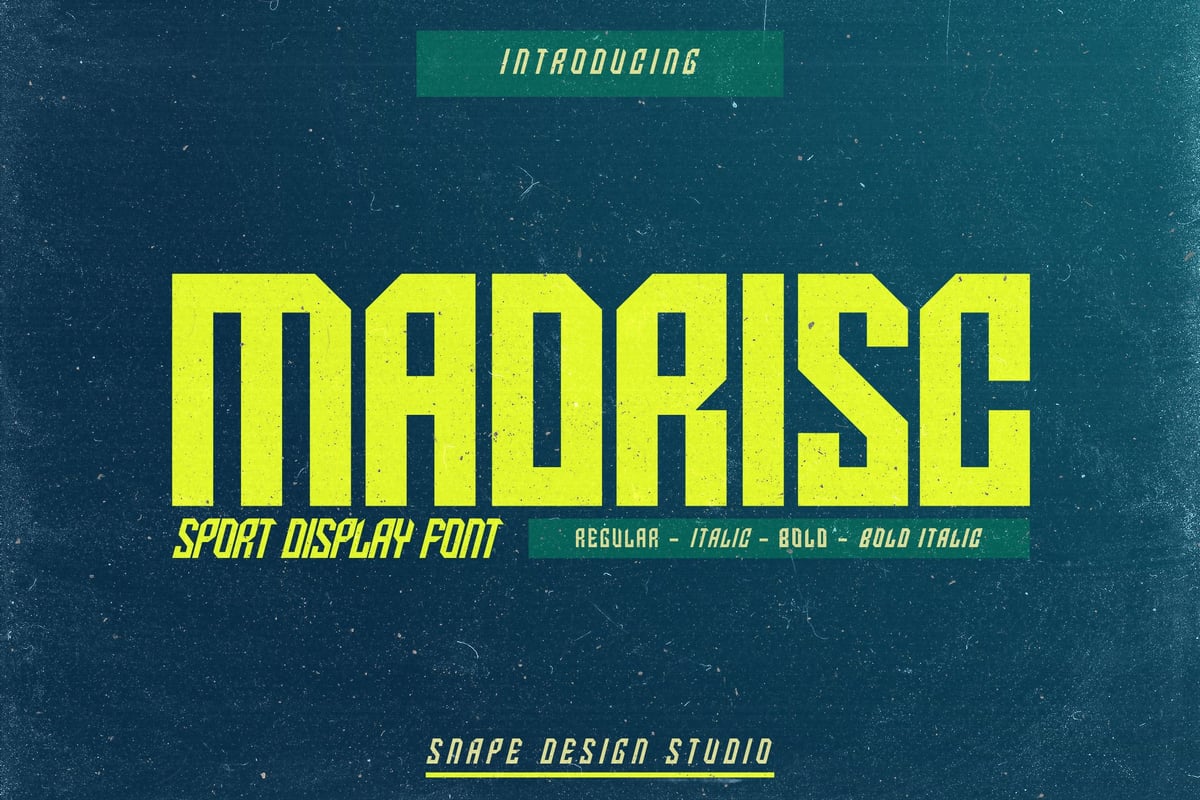
Madrisc - Sport Font
Make your sport-inspired projects stand out with Madrisc's powerful, attention-grabbing design that commands the spotlight. This bold sans serif typeface is specifically crafted to bring vibrant energy to athletic and competitive designs. Whether you're creating team jerseys, league branding, or fitness marketing materials, Madrisc delivers the strong visual impact your project demands. Perfect applications include sport design projects, team identity, jersey lettering, league branding, movie ti...